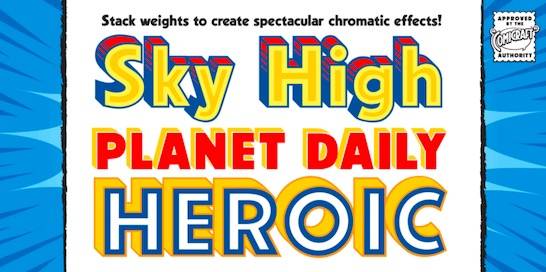
Up Up And Away Font Family FREE
by Comicraft
Up Up And Away Font was designed by John Roshell. This is a new Comic typeface with 5 main styles and was released by Comicraft. Many designers have already installed this font and are ready to take orders. If you are also looking forward to this font then you are at the right place.
Along with its luxury look, you can design a movie poster, regular book cover, logo, comic, birthday cards, delightful invitations, t-shirts, and more.